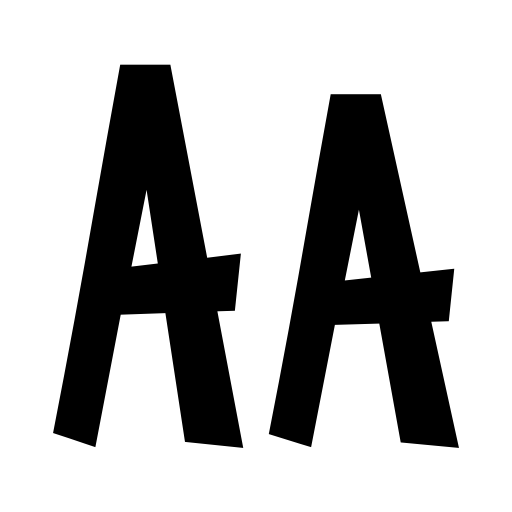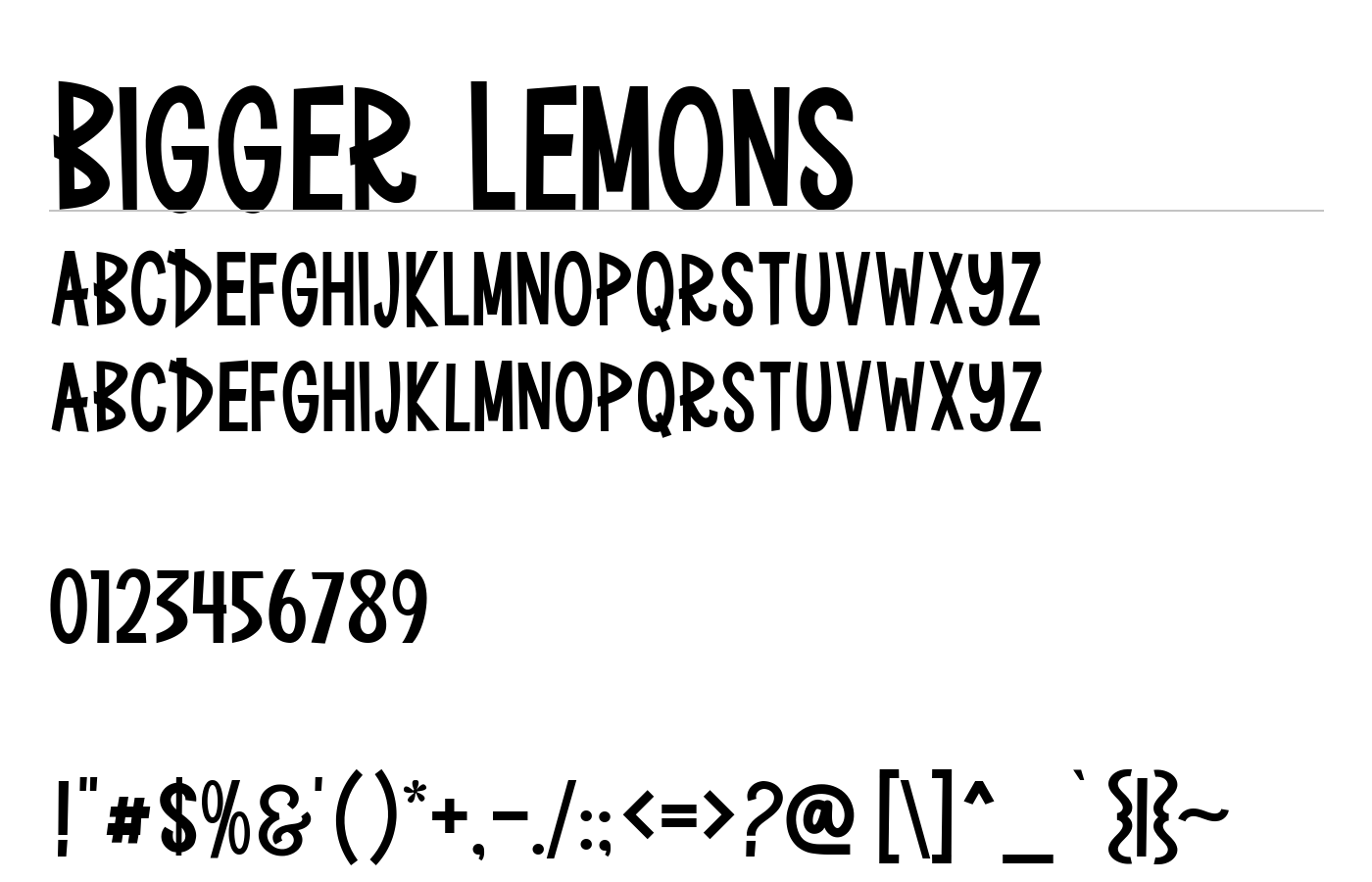
Bigger Lemons is a playful, tall sans serif font with a hand-drawn feel, featuring irregular strokes and a slightly narrow width that adds character and whimsy. Its quirky letterforms and moderate contrast make it ideal for creative, casual projects like fun branding, posters, or headlines where a friendly and approachable tone is desired. This font works best when you want to inject personality and charm while maintaining clear readability.
Bigger Lemons Font